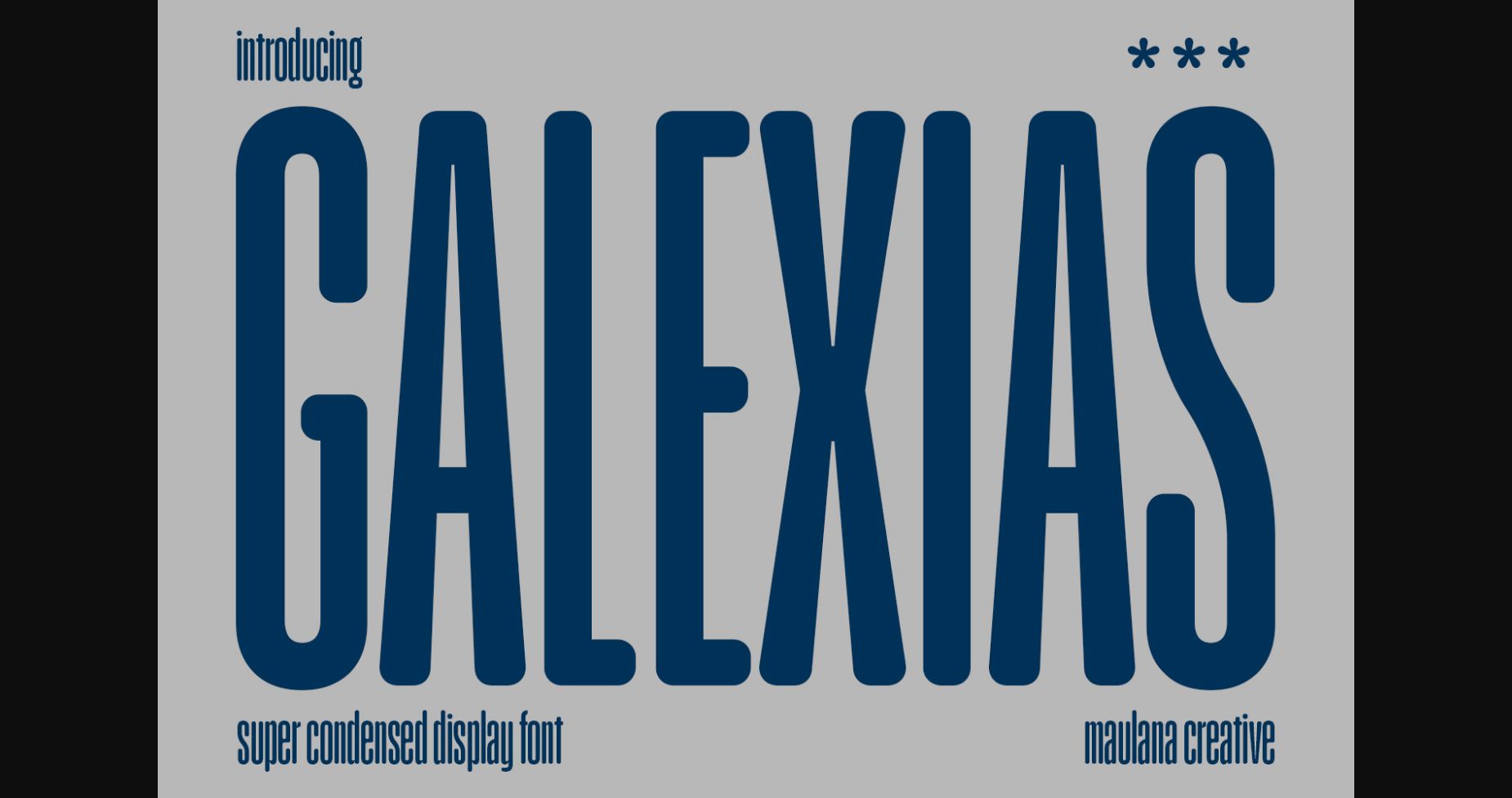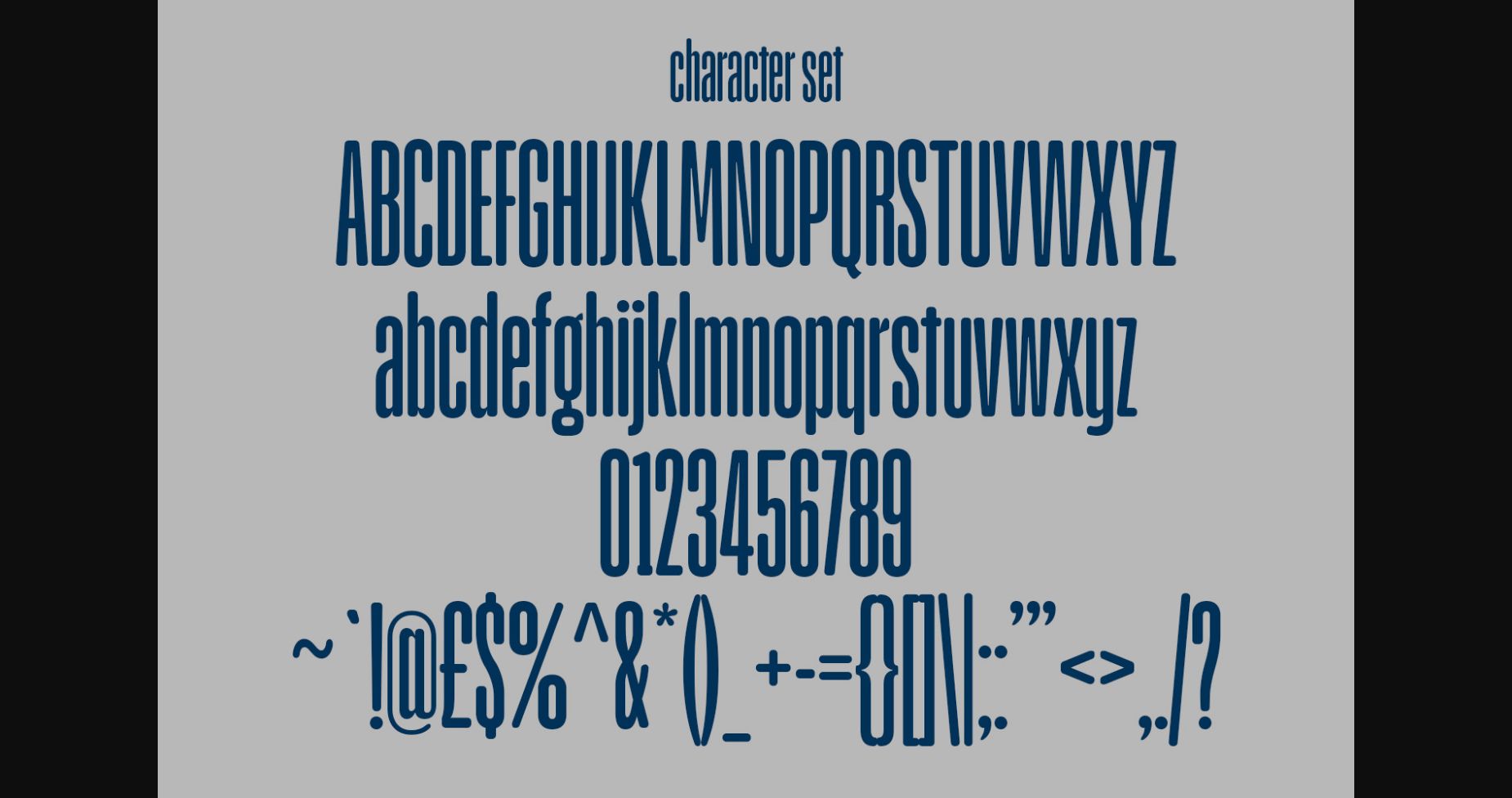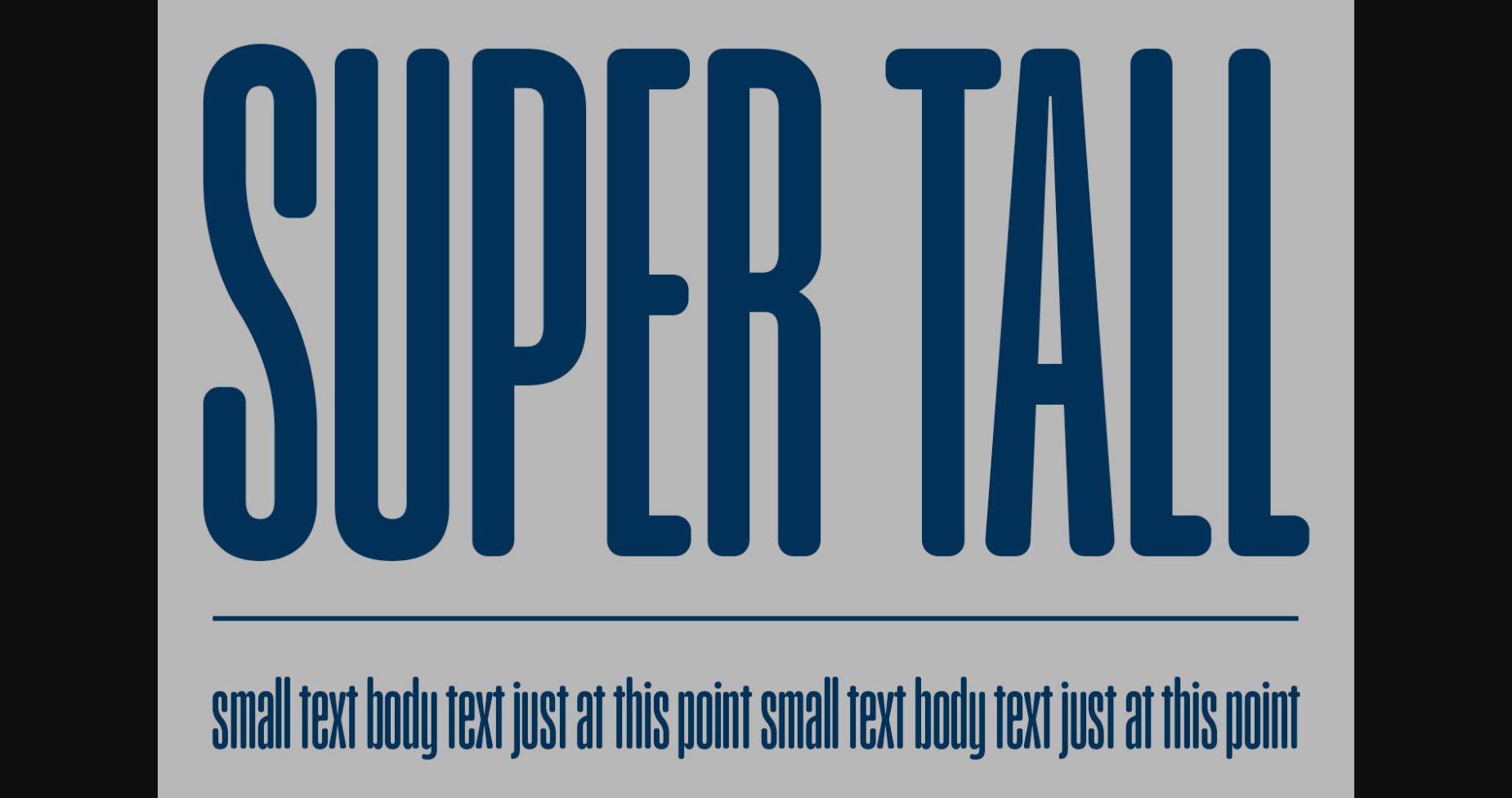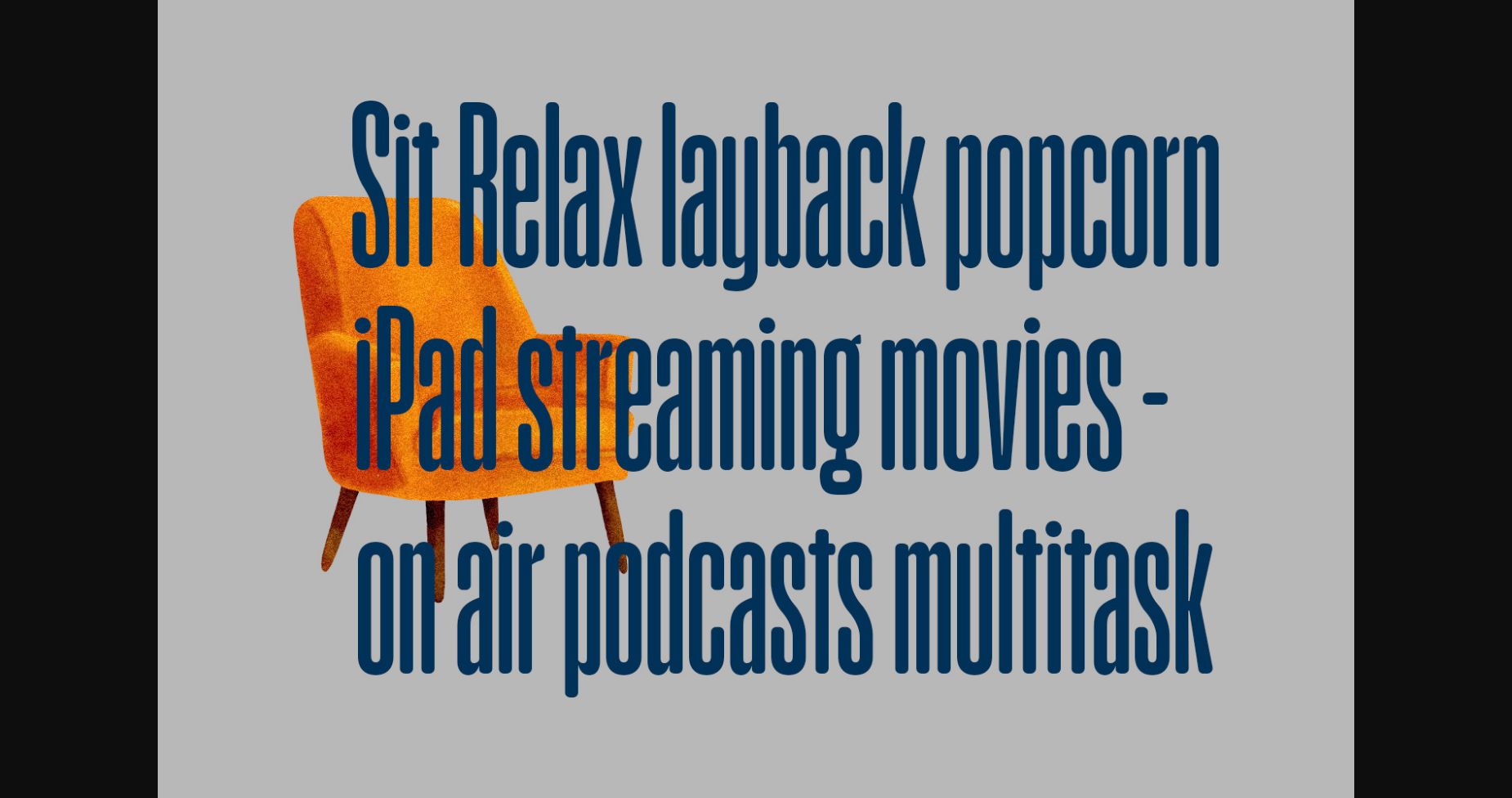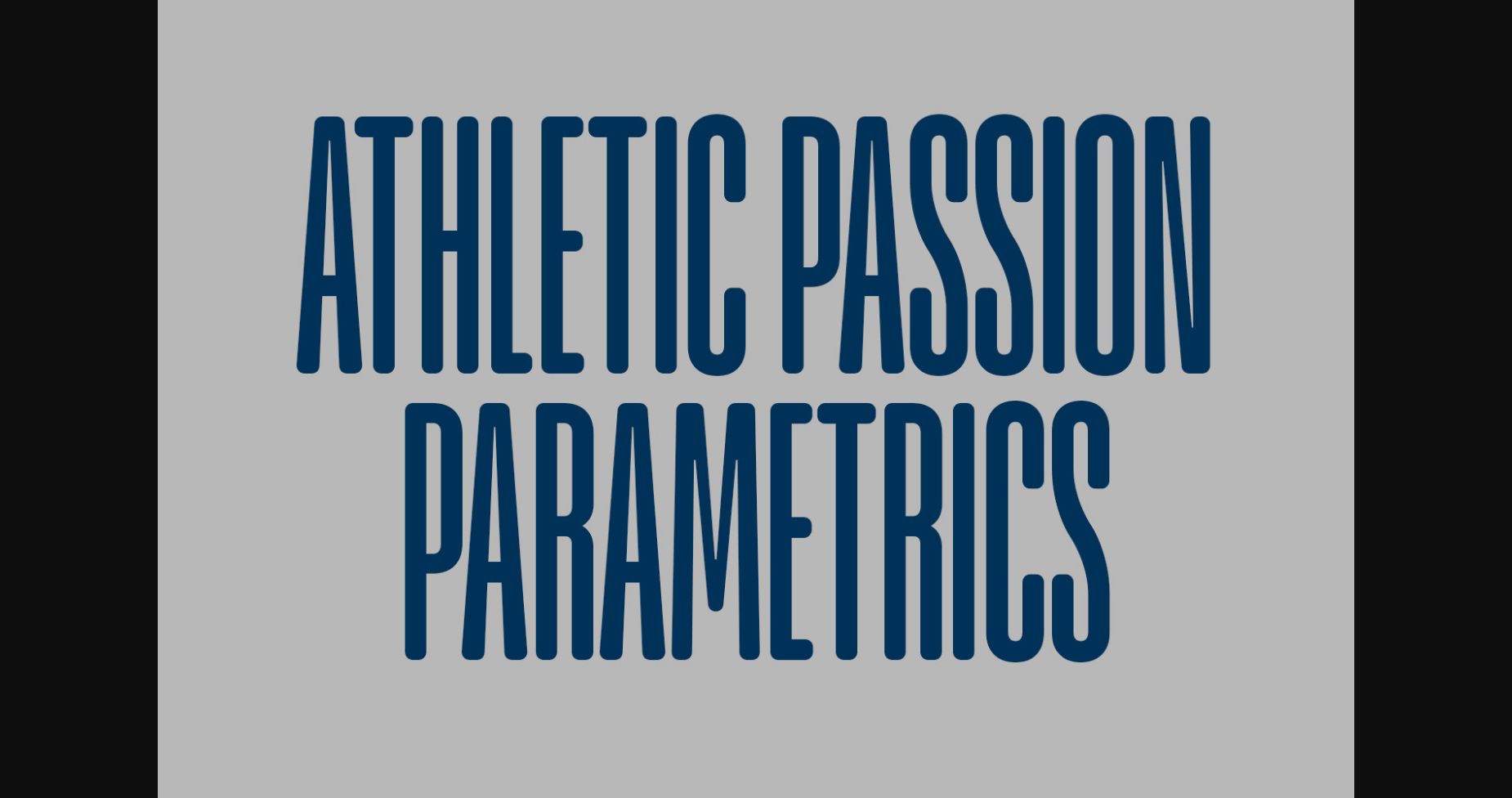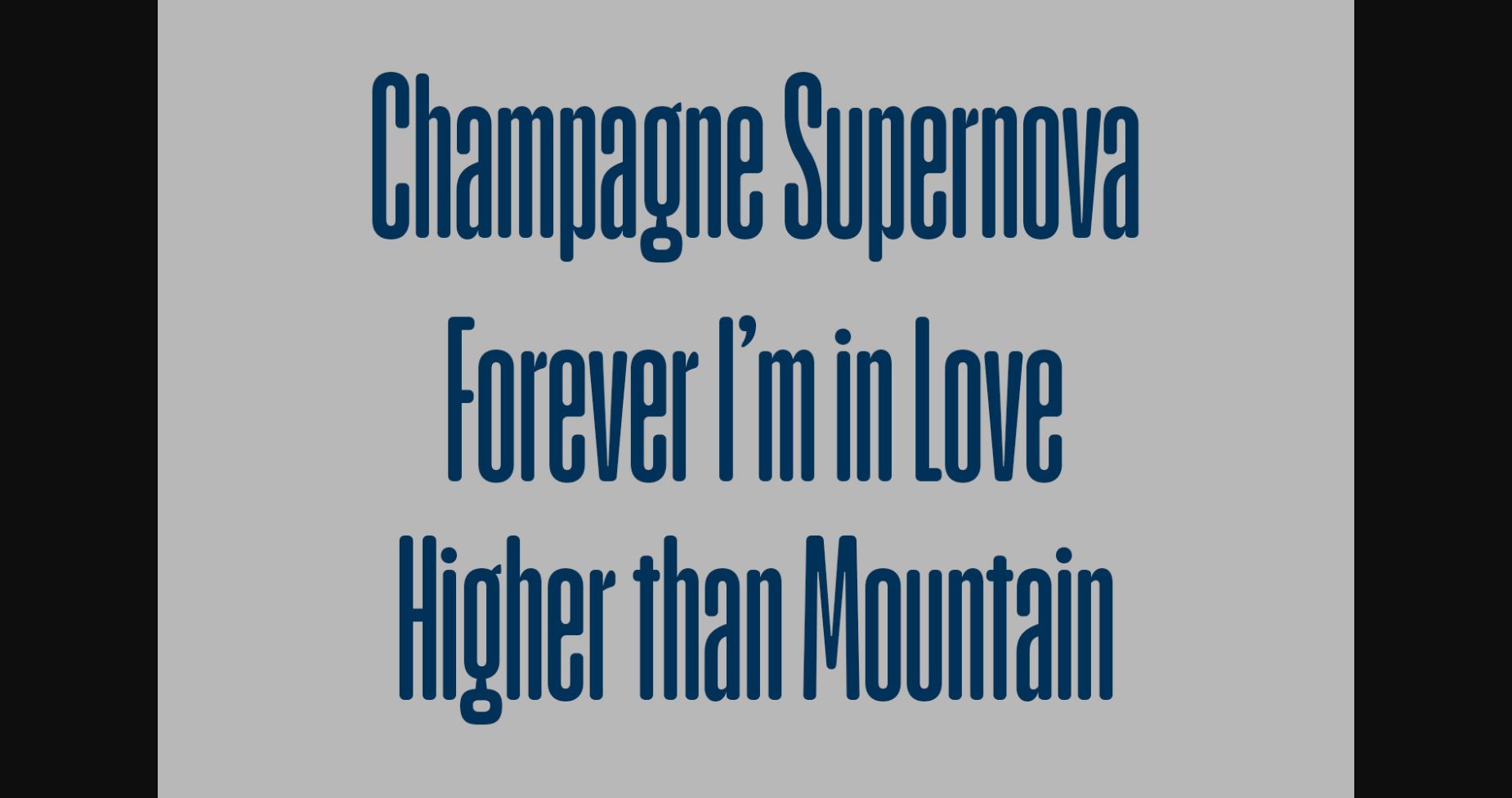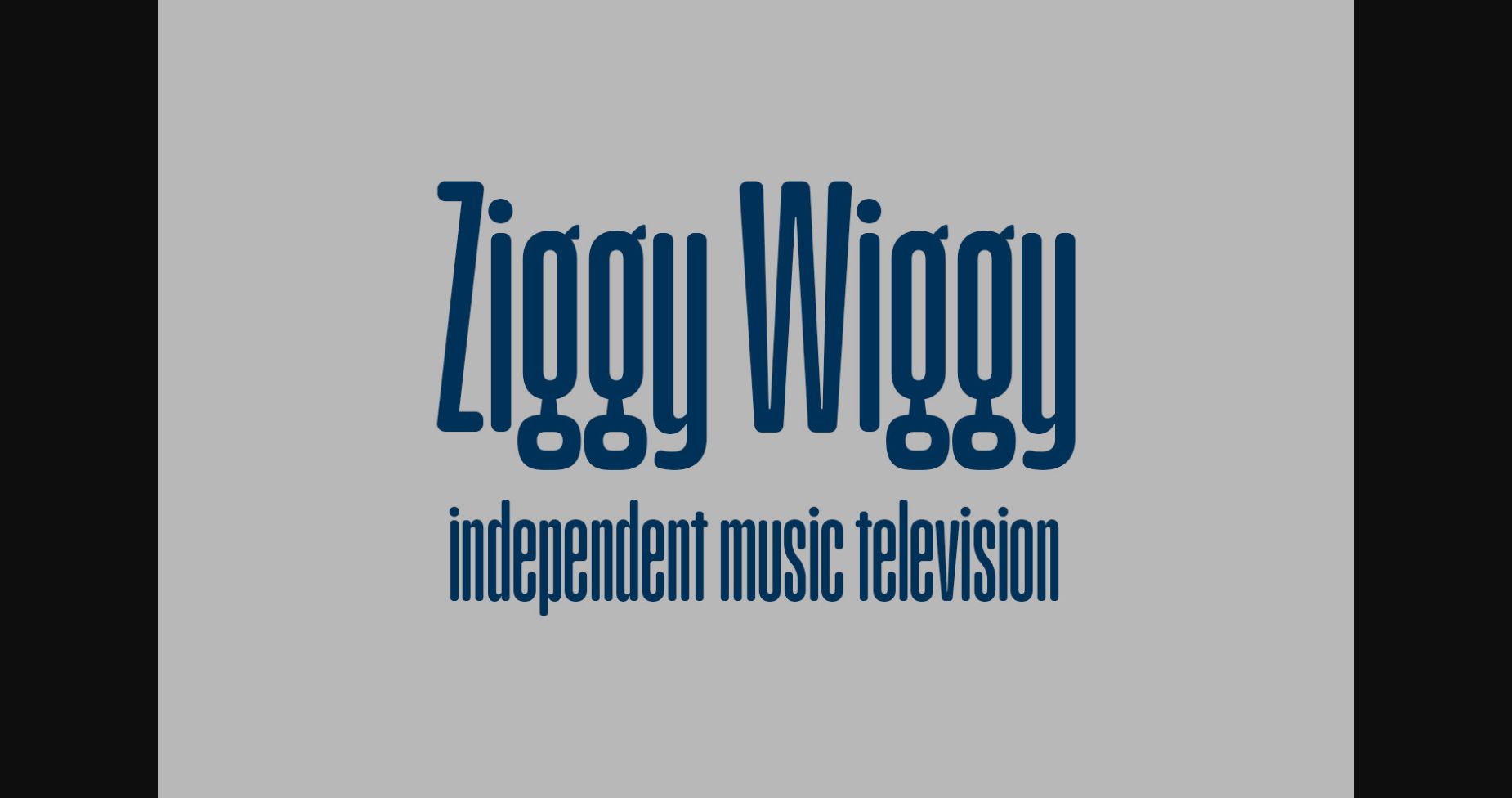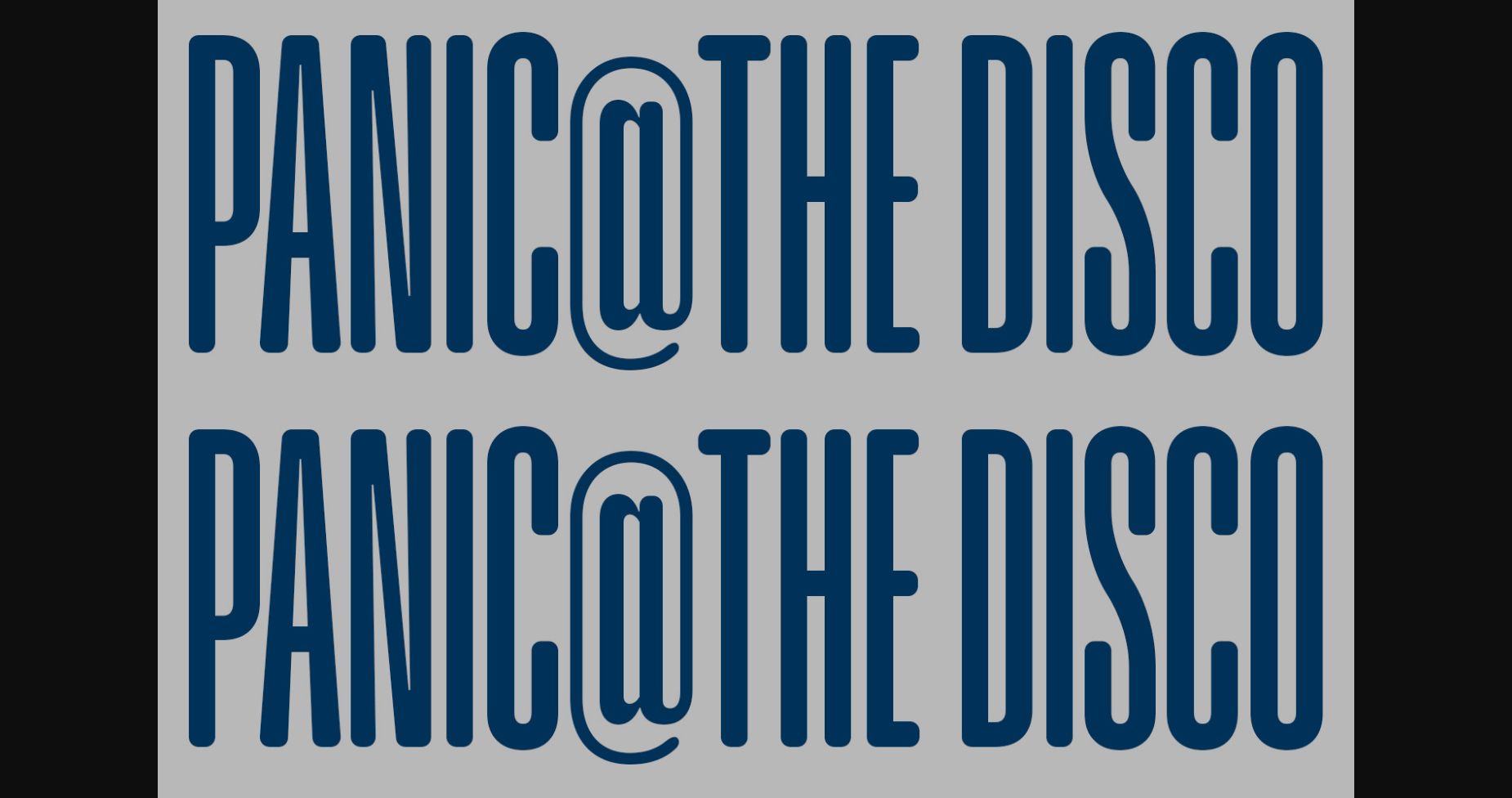
HomeSans Serif FontsGalexias Font Sans Serif Fonts Galexias Font FacebookXPinterestWhatsApp 1 of 10 ... Galexias Font Poster 2... Galexias Font Poster 3... Galexias Font Poster 4... Galexias Font Poster 5... Galexias Font Poster 6... Galexias Font Poster 7... Galexias Font Poster 8... Galexias Font Poster 9... Galexias Font Poster 10... About Galexias Font Galexias is a modern and fun sans serif font. You can use Galexias for headlines, social media, gig posters, logos, packaging, advertising, and much more. DOWNLOAD NOW People also explored Sunsetof Font Wisdom Key Font Clovern Font Jaman Edan Script Font No Parking JNL Font Isara Summer Night Font Threva Sans Serif Two Style Font Kumaruka Font 264 0 TagsGalexias Font Previous articleHand Cream FontNext articleAlterta Font LEAVE A REPLY Cancel reply Comment: Please enter your comment! Name:* Please enter your name here Email:* You have entered an incorrect email address! Please enter your email address here Website: Save my name, email, and website in this browser for the next time I comment. Personal Use Free Histeria Bites Personal Use Free Read more about this font Bonhomie Personal Use Free Read more about this font Dandelions Bloom Personal Use Free Read more about this font Special Day Personal Use Free Read more about this font BLOG Free vs Paid Fonts: Why Investing in Premium Fonts Is Worth It Free vs Paid Fonts: Why Premium Fonts Are Worth It in 2025 The debate of free vs paid fonts continues in the design world. While... Modern Sans-Serif Fonts That Brands Love in 2025 Transform Your Website: Elevate Your Typography with 7 Best Web Font Generators How to Cut Any Font on Cricut: Convert a Font to SVG (Free)